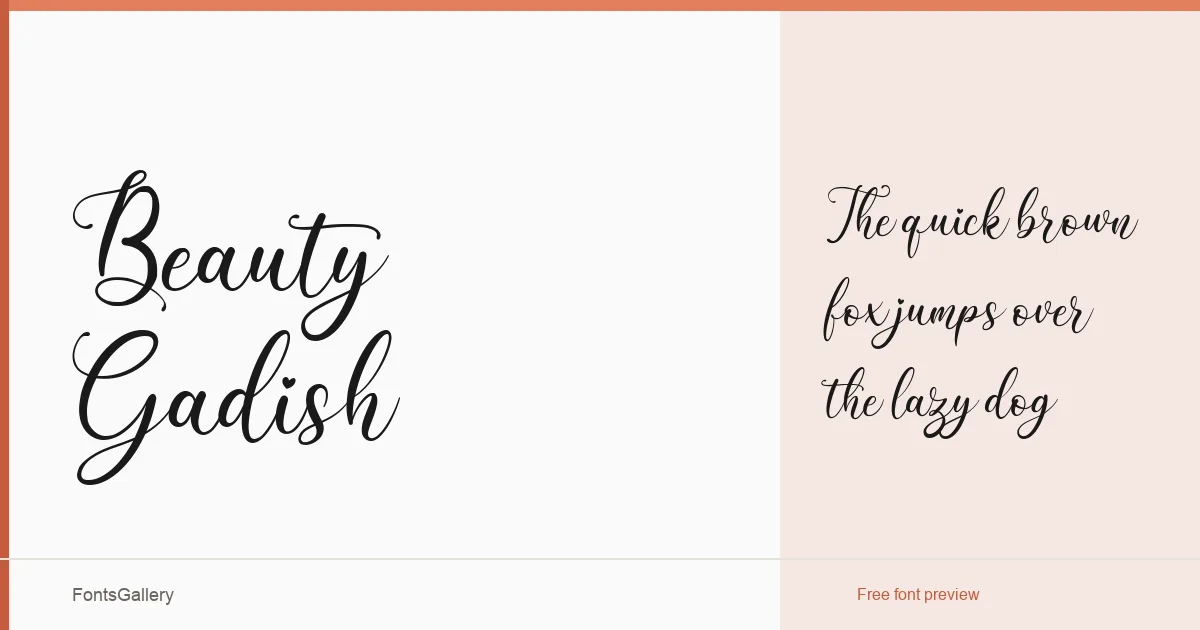
About Beauty Gadish Font
Beauty Gadish is an elegant script typeface created by Rinto Dwi Nugroho under the Almeerastudio foundry in 2019. It exudes a sense of luxury and romance, making it a distinctive choice for projects that call for a refined and classic aesthetic. This font brings a graceful, flowing character that elevates any design it graces.
As a script font, Beauty Gadish features fluid, flowing letterforms that capture a romantic and classic sensibility. The elegant curves and sophisticated strokes reflect a luxurious quality, lending each character a timeless, handcrafted feel. These traits combine to create a typeface that feels both elevated and deeply personal.
Beauty Gadish is ideally suited for logos, wedding stationery, invitation cards, branding projects, and greeting cards where an air of elegance and luxury is desired. Its romantic, classic style makes it especially well-suited for wedding and event-related designs that need to feel refined and memorable. For a balanced typographic combination, Beauty Gadish pairs beautifully with Aresink or Helvetica.